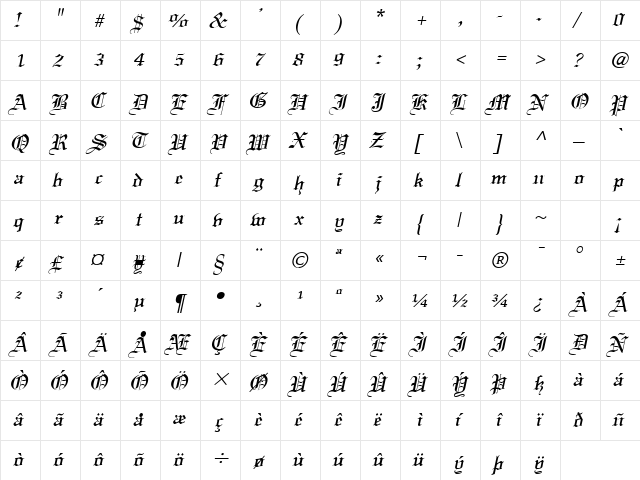
England Italic
Design Context for England Typeface
England is a composed and adaptable typeface that performs quietly and consistently across a wide range of design contexts. The dynamic lean of this cut emphasises speed and emphasis in any layout.
Pro Tip: Try England for annotation and caption copy alongside an upright companion — the contrast in angle creates a dynamic but ordered typographic system.